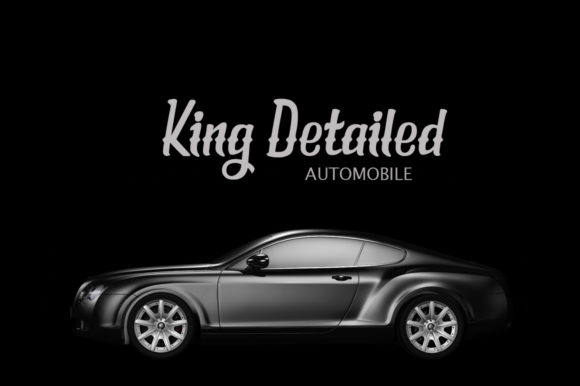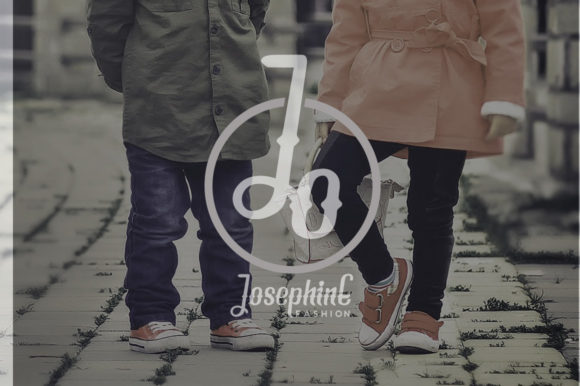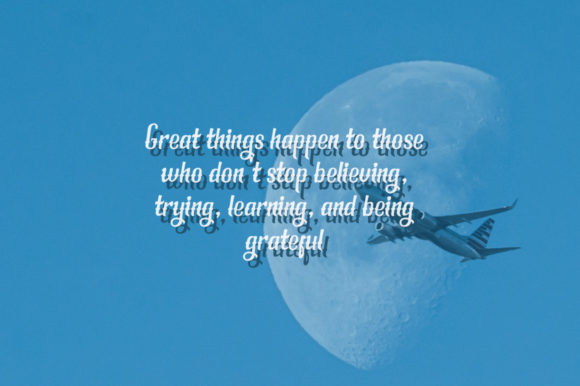
Introduction to Jophine Queen Font
Jophine queen is a vintage display font.
Jophine queen will turn any creative idea into a true standout This font is the perfect fit for all of your quotes, logos, branding, social media, and crafty DIY projects etc.
Jophine Queen Font offers exceptional quality and versatility, making it a valuable addition to your design toolkit. Whether you’re creating for personal projects or commercial use, Jophine Queen Font delivers professional results.